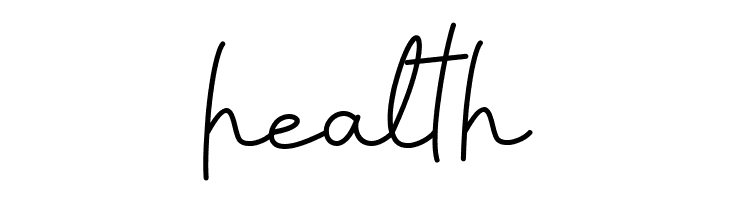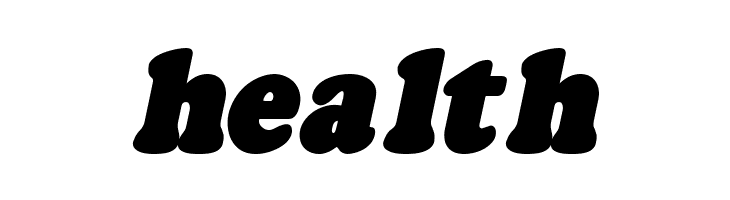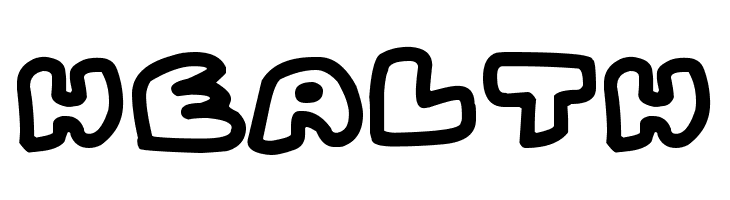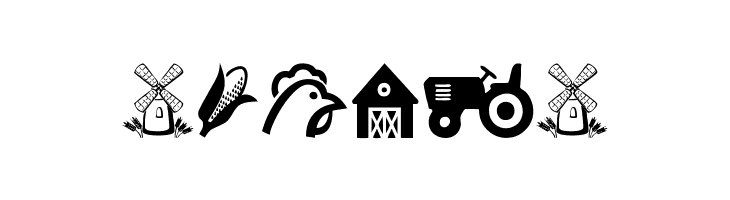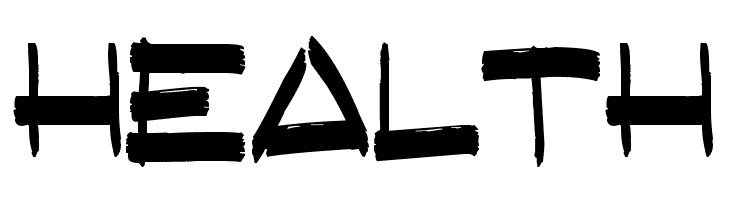
• Faritta
A playful, handwritten font with flowing, cursive-like strokes.
• Farm
Bold, decorative farm-themed icon set with clear silhouettes.
• Fast Flat Brush
A bold, brush-stroke font with a dynamic and textured appearance.
• Fat Wobble Outlines
A playful, bold font with thick, rounded outlines and a whimsical style.
• Fathony Script
A playful and elegant script font with flowing, cursive letterforms.
• Fatso Italic CS
• FauxAntique
An elegant, vintage script font with ornate detailing and flowing lines.
• Fearing Madness
A bold, decorative font with vintage flair and ornate embellishments.
• Fearing Madness
• Feelin Sweet
A bold, cursive font with a playful and energetic style.